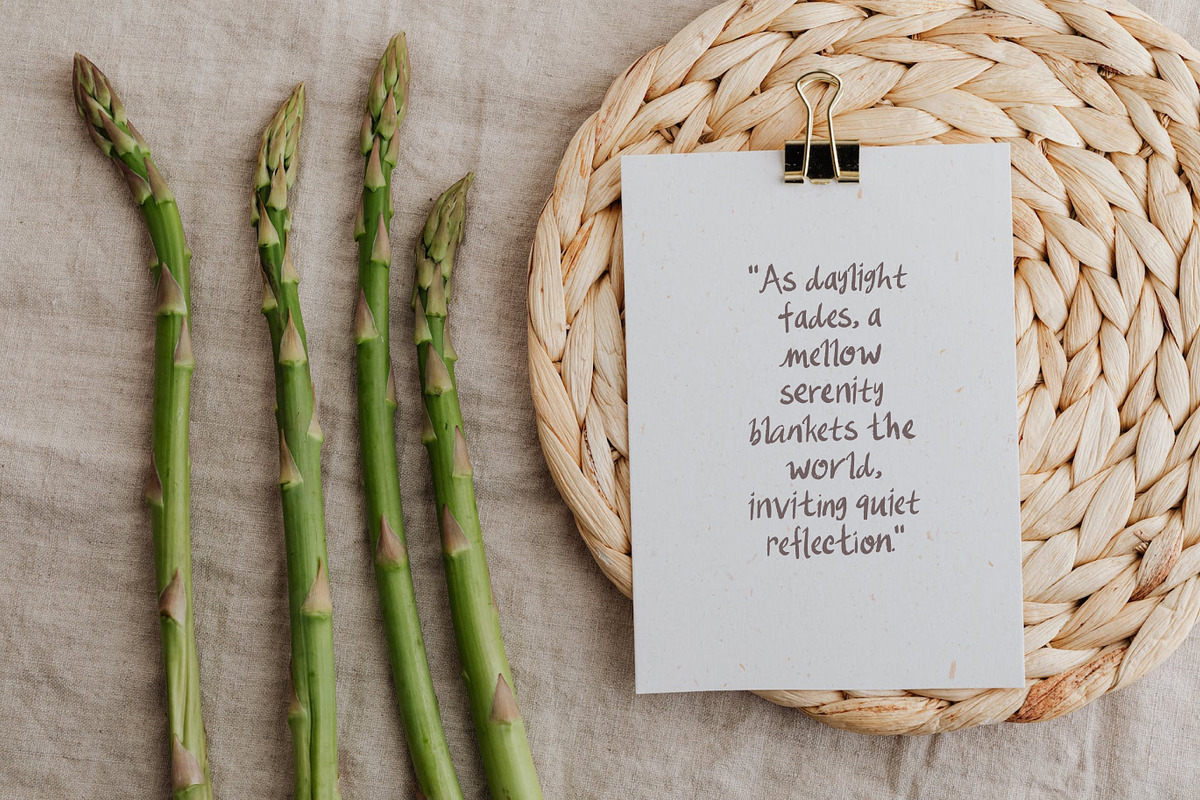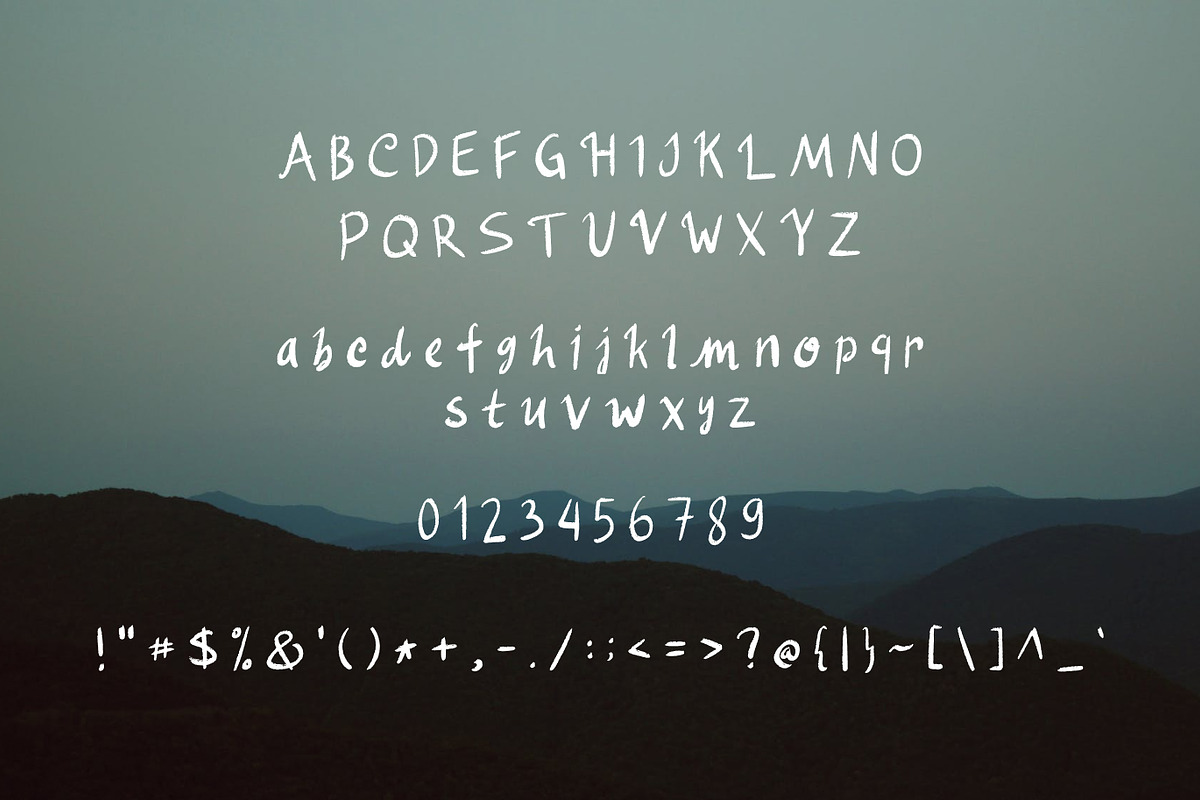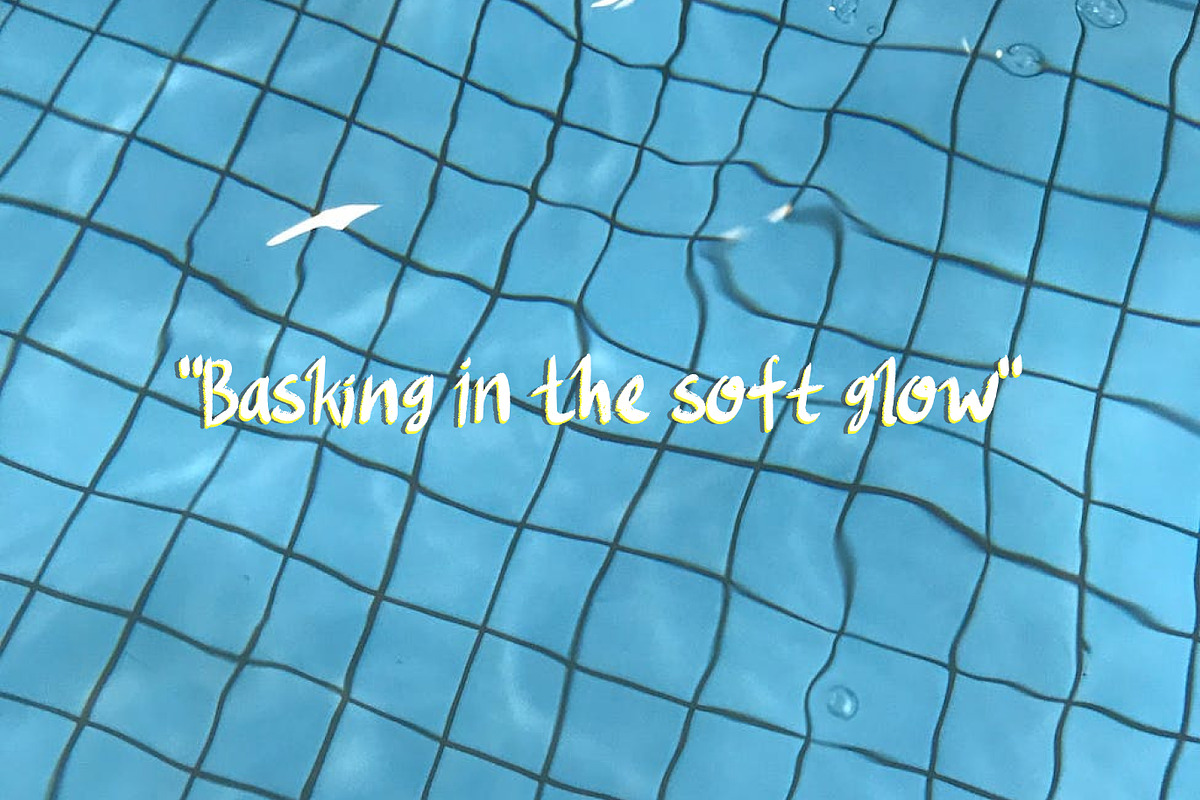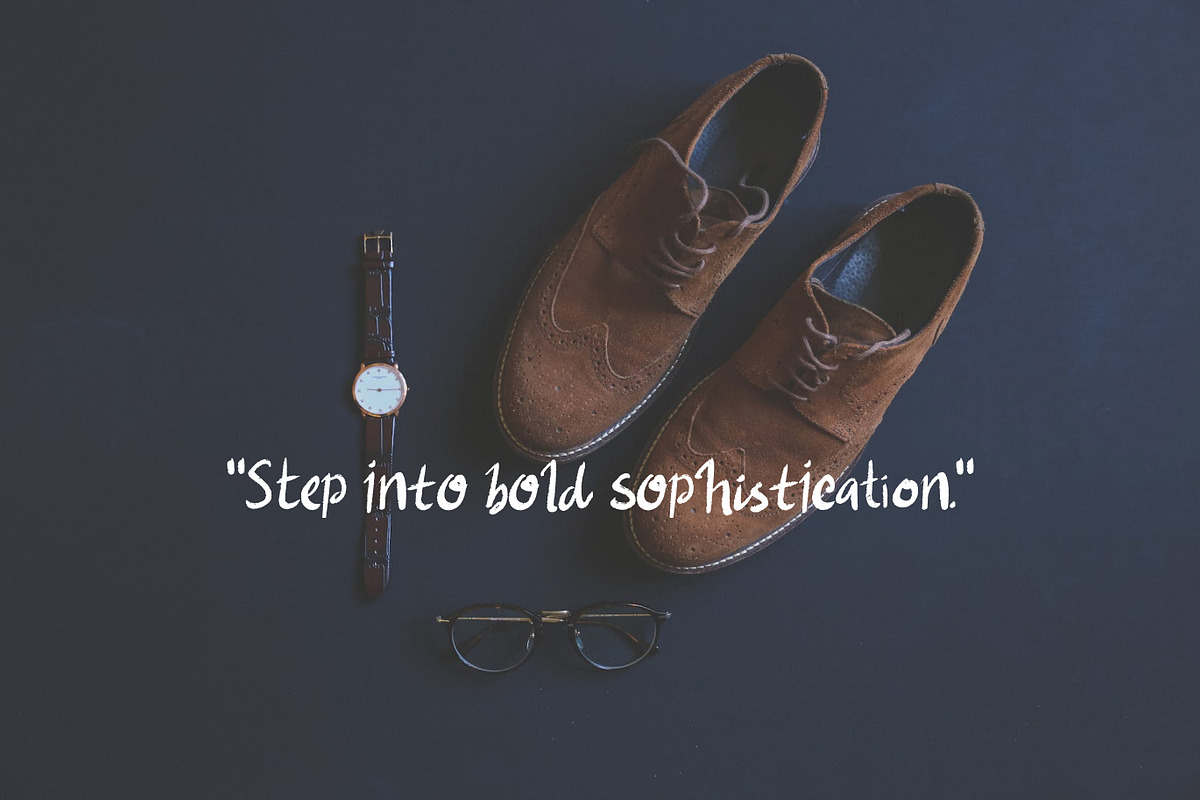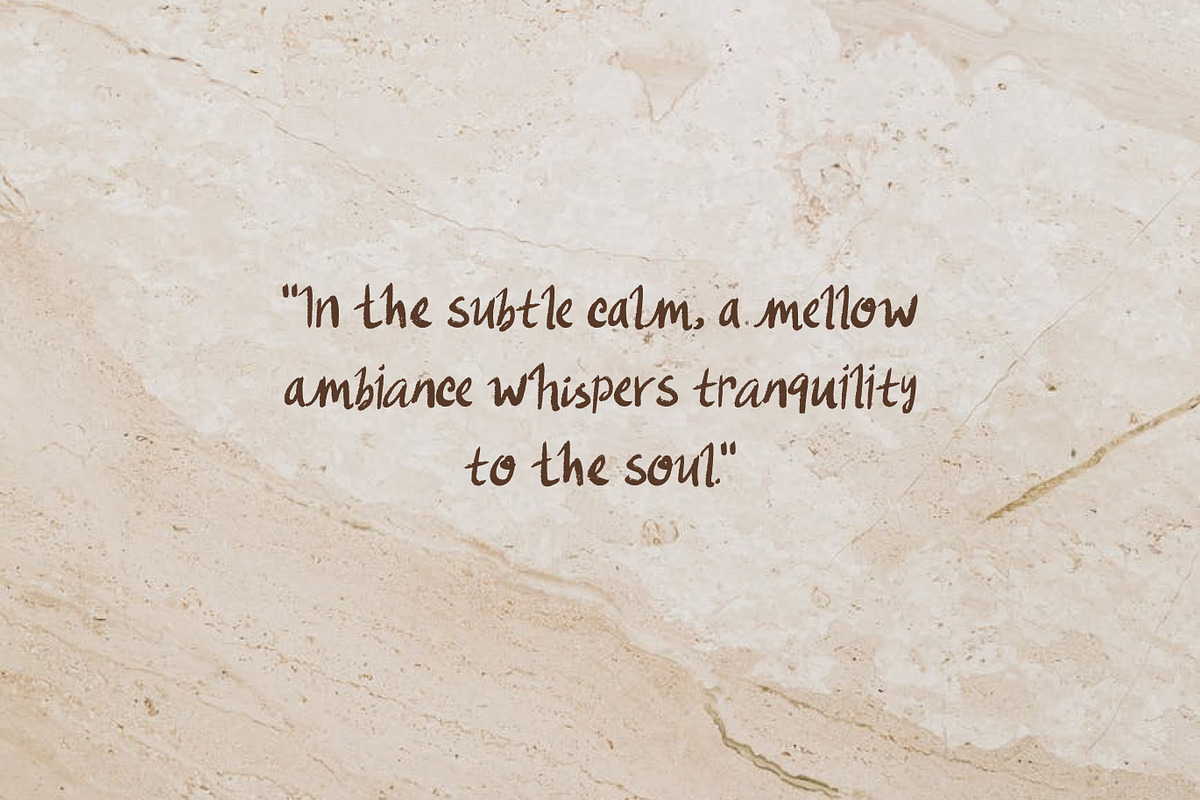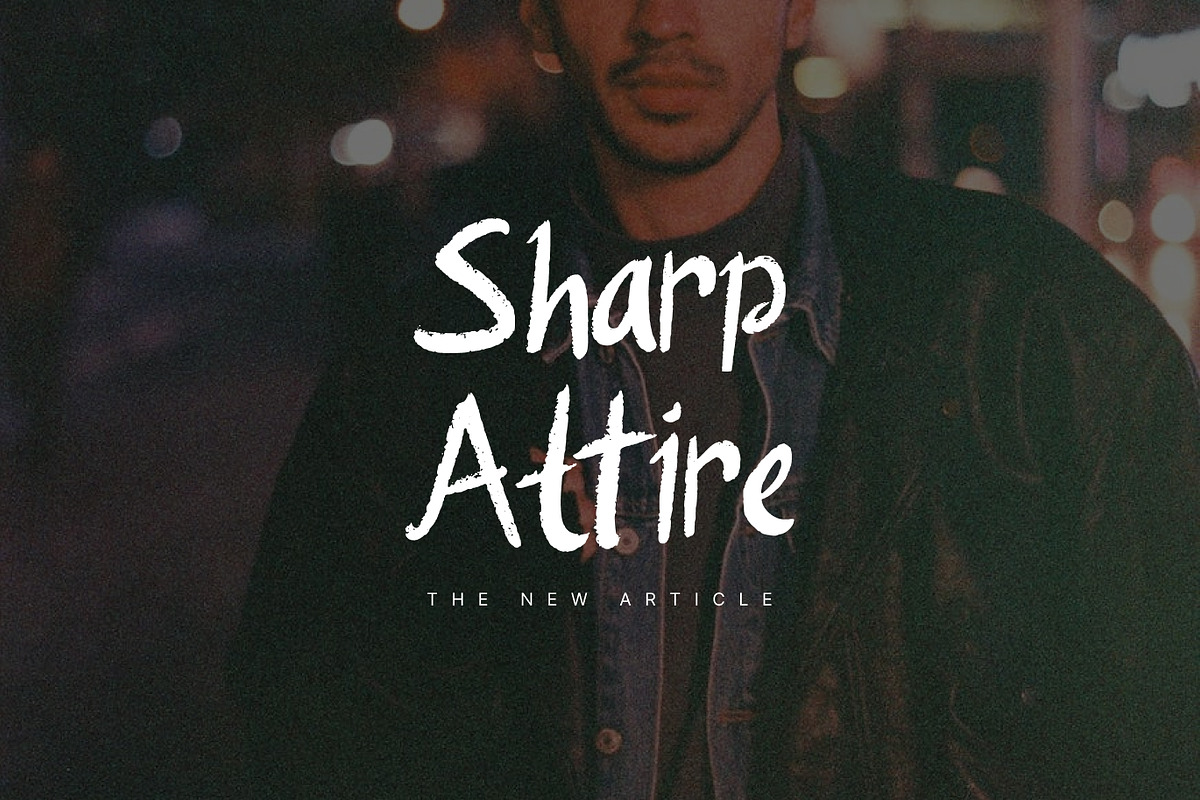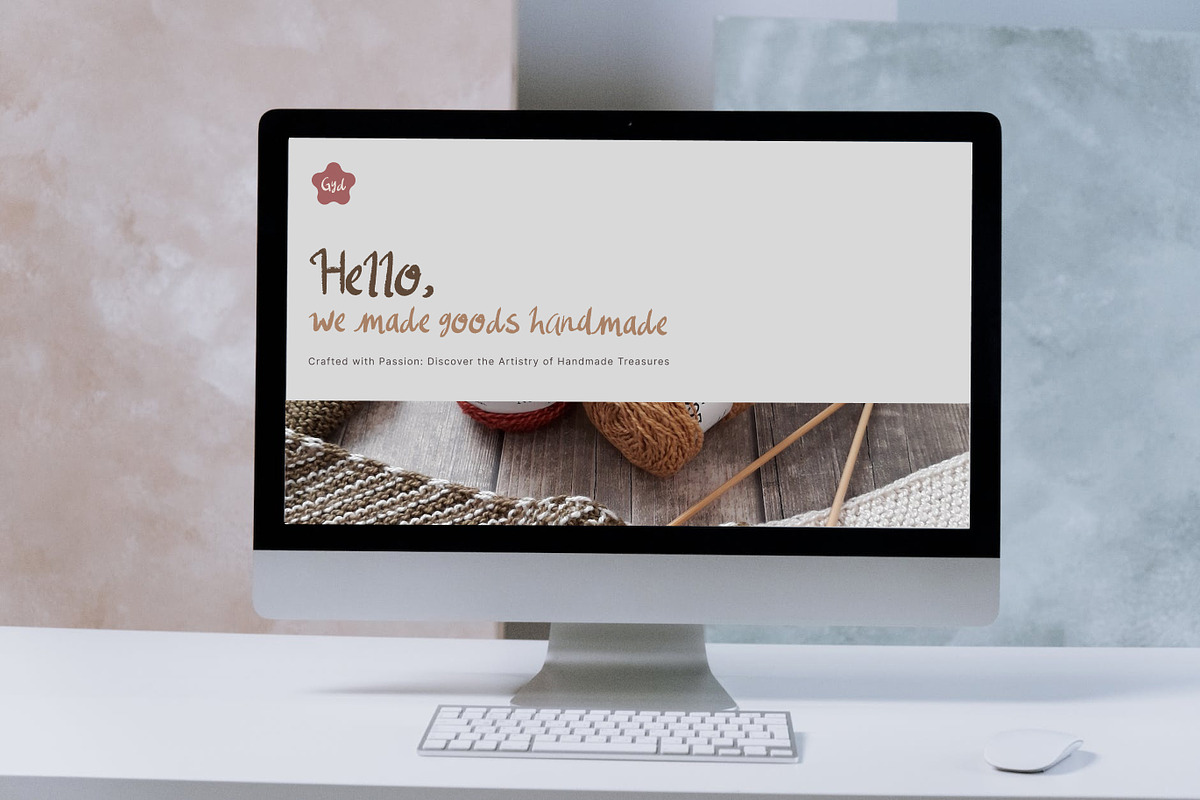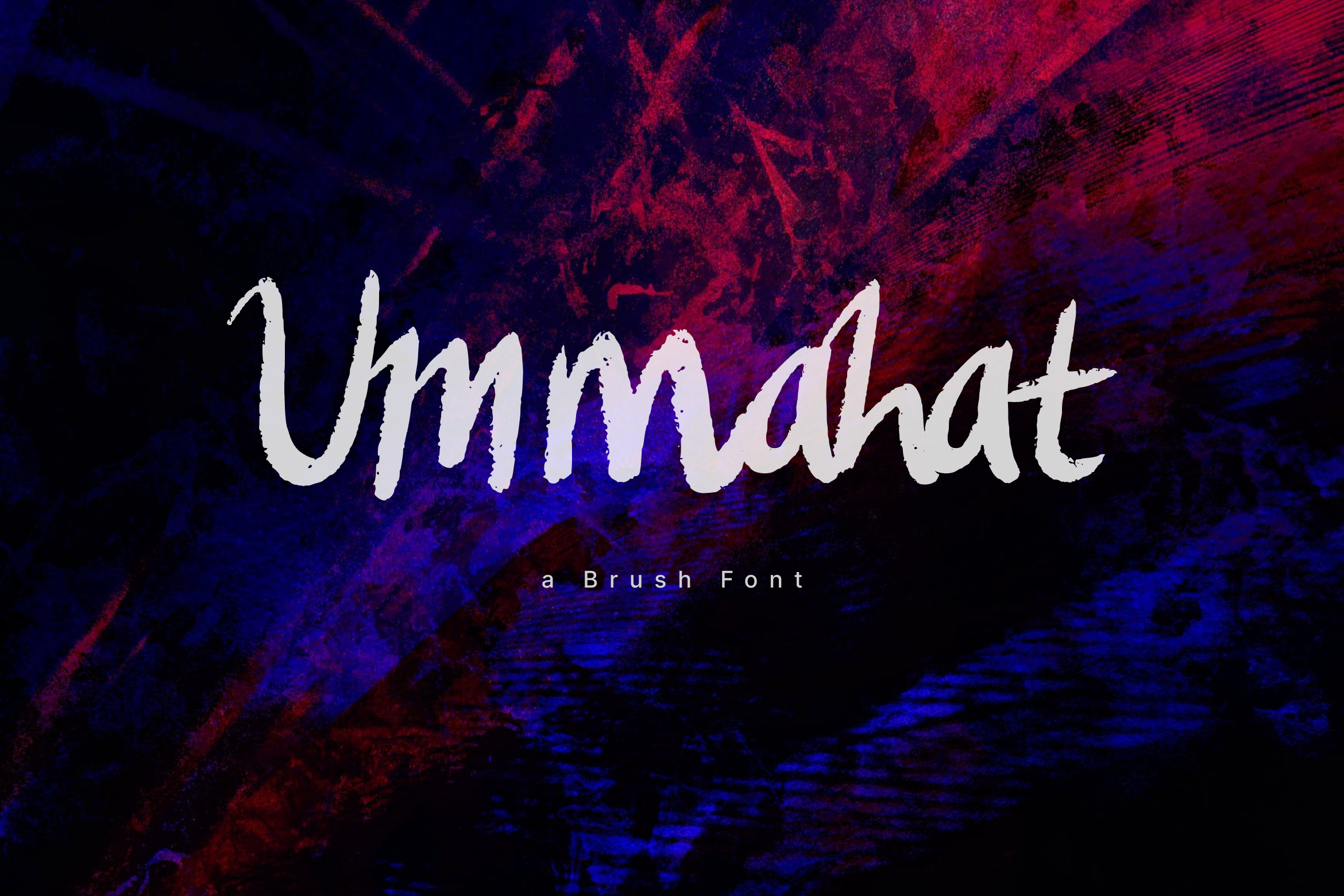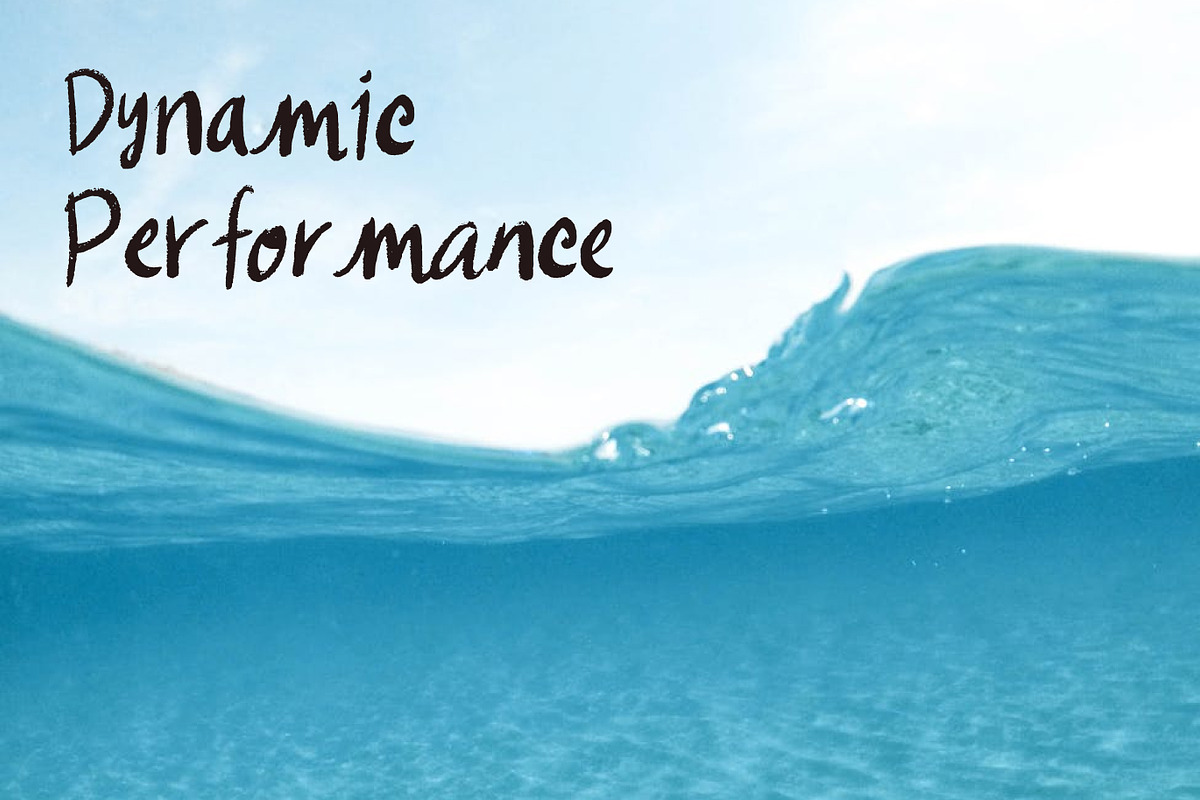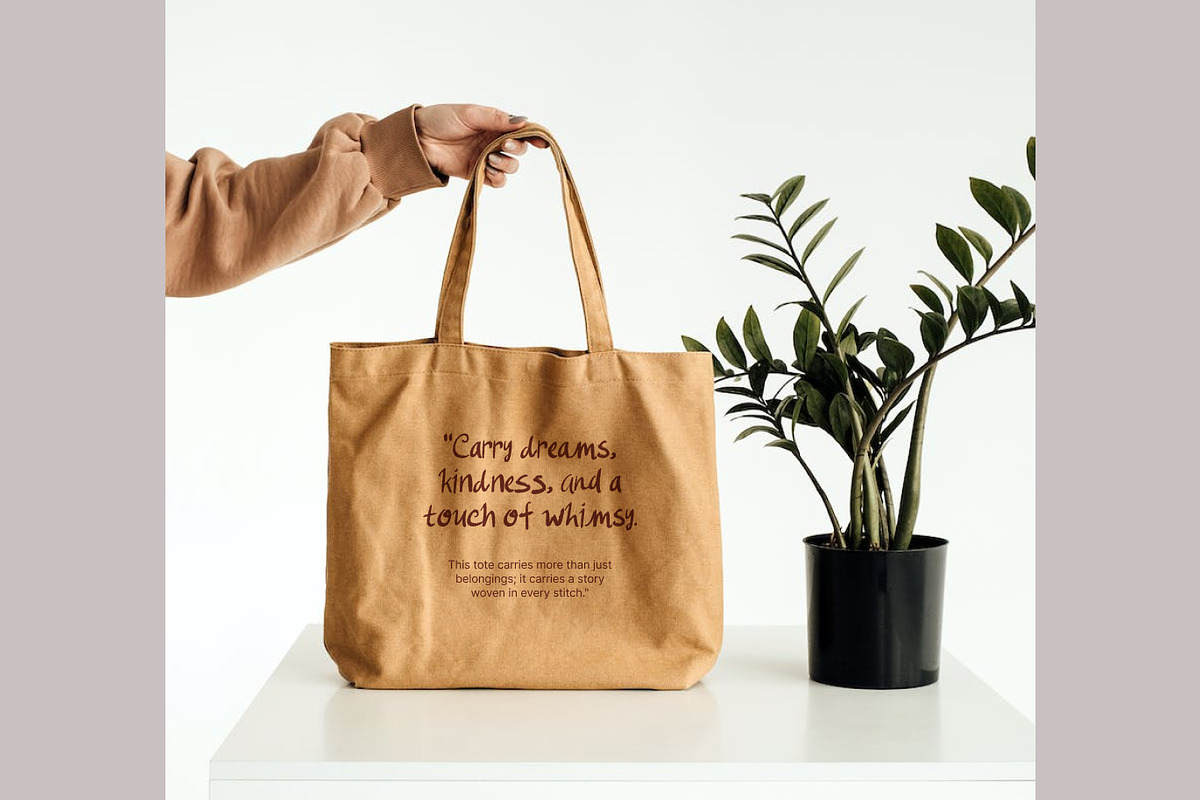
Ummahat - Brush Font
Ummahat Brush Font is perfect for branding projects, quote posts, social media posts, stylish design, street art, personal projects, advertisements, product packaging, labels, photography, invitations, business cards, logos, stationery, fashion ads, etc.
Basic Latin A-Z and a-z
Number and Punctuation Symbols
Ligature